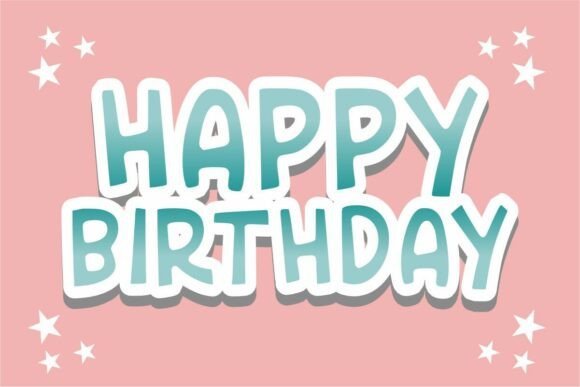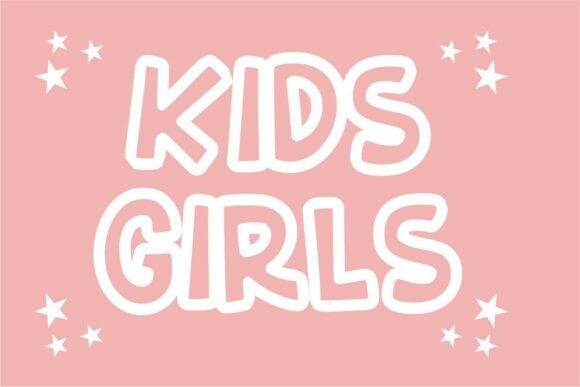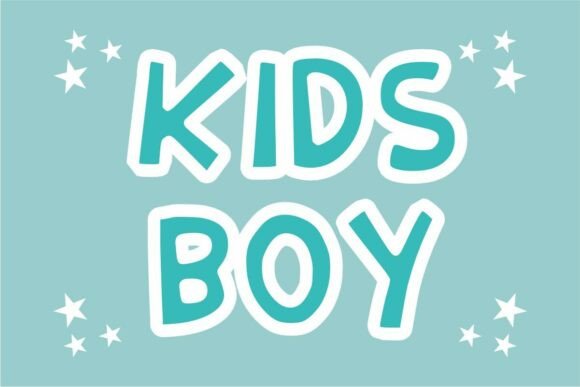
Spark Your Imagination with Crafter Creative Font
In the world of design, fonts play a crucial role in conveying the tone and personality of a brand. For crafters, makers, and creatives, finding the perfect typeface can be a daunting task. That’s where Crafter Creative comes in – a vibrant display font designed to bring a touch of handmade joy to your visual identity.
The Essence of Crafter Creative
Crafter Creative is a bold, chunky font with soft, rounded edges and a playful, slightly irregular rhythm. This unique combination captures the essence of DIY crafting and creative expression, making it an exceptional choice for youth-oriented branding, nursery decor, handmade product packaging, and high-energy social media headers.
Key Features of Crafter Creative
- Bold and Chunky Letterforms: Crafter Creative features bold, chunky letterforms that demand attention and exude confidence.
- Soft and Rounded Edges: The soft, rounded edges of Crafter Creative give it a friendly, approachable feel that’s perfect for brands looking to connect with their audience on a personal level.
- Playful and Irregular Rhythm: The playful, slightly irregular rhythm of Crafter Creative adds a touch of whimsy and creativity to your designs, making them stand out from the crowd.
- Heavy Visual Weight: The heavy visual weight of Crafter Creative makes it perfect for headlines, titles, and other display text.
- “Bubbly” Silhouette: The “bubbly” silhouette of Crafter Creative gives it a fun, energetic feel that’s perfect for youth-oriented branding and social media headers.
Crafter Creative is designed to deliver a sense of professional, human-centric warmth and infectious creative energy to your designs. Whether you’re a designer looking for a unique font to add to your toolkit or a crafter seeking to elevate your brand, Crafter Creative is the perfect choice.
Use Cases for Crafter Creative
- Youth-Oriented Branding: Crafter Creative is perfect for brands looking to connect with a younger audience. Its playful, energetic vibe and bold letterforms make it an exceptional choice for logos, packaging, and marketing materials.
- Nursery Decor: The soft, rounded edges and playful rhythm of Crafter Creative make it a great choice for nursery decor, children’s books, and educational materials.
- Handmade Product Packaging: Crafter Creative is perfect for handmade product packaging, adding a touch of warmth and personality to your products.
- High-Energy Social Media Headers: The bold, chunky letterforms and “bubbly” silhouette of Crafter Creative make it an exceptional choice for high-energy social media headers that demand attention.
Why Choose Crafter Creative?
With Crafter Creative, you can:
- Add a Touch of Handmade Joy: Crafter Creative brings a touch of handmade joy to your visual identity, setting you apart from the competition.
- Convey a Sense of Professional Warmth: Crafter Creative delivers a sense of professional, human-centric warmth that resonates with your audience.
- Infuse Your Designs with Creative Energy: The playful, energetic vibe of Crafter Creative infuses your designs with creative energy, making them stand out with a legendary and unforgettable personality.
Crafter Creative is a vibrant display font designed to spark your imagination and bring a touch of handmade joy to your visual identity. With its bold, chunky letterforms, soft, rounded edges, and playful, slightly irregular rhythm, Crafter Creative is the perfect choice for designers and crafters looking to elevate their brand and add a touch of personality to their designs.